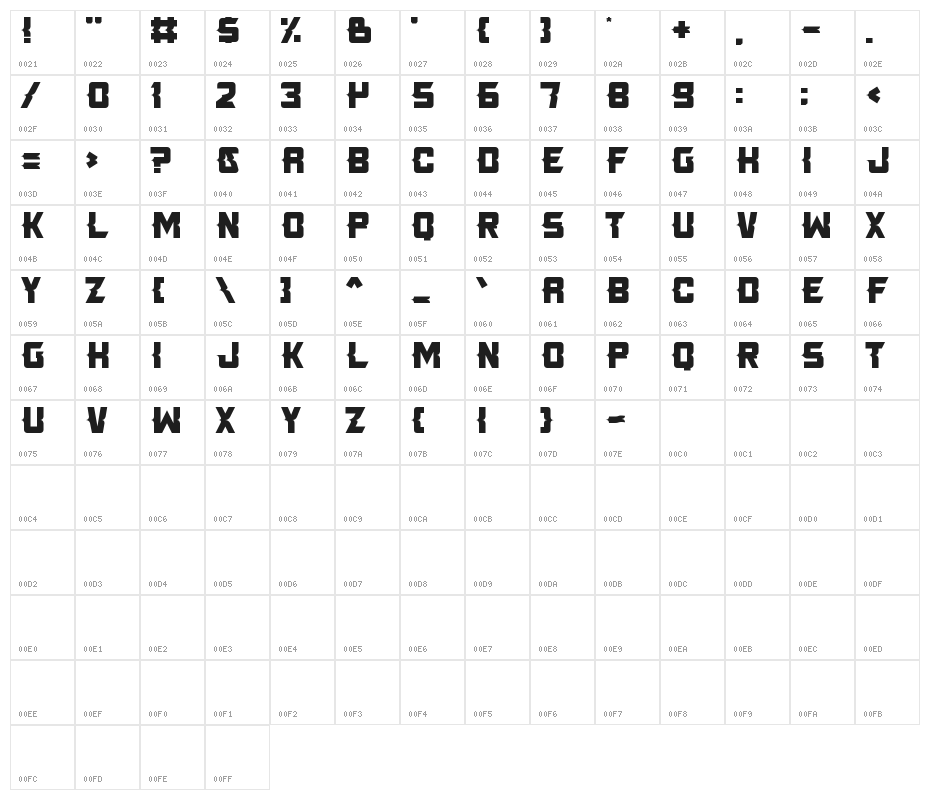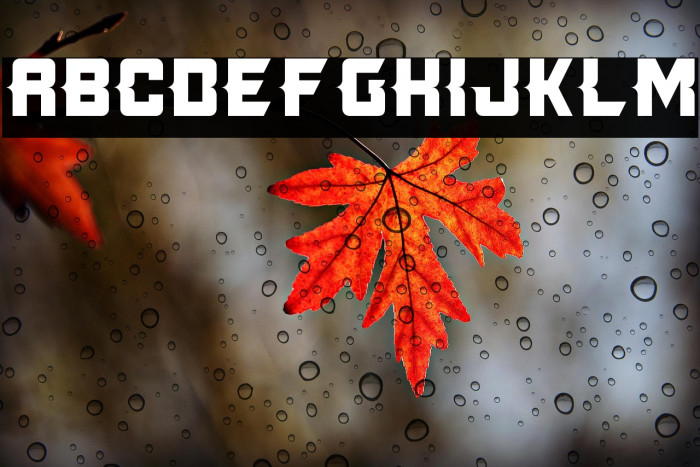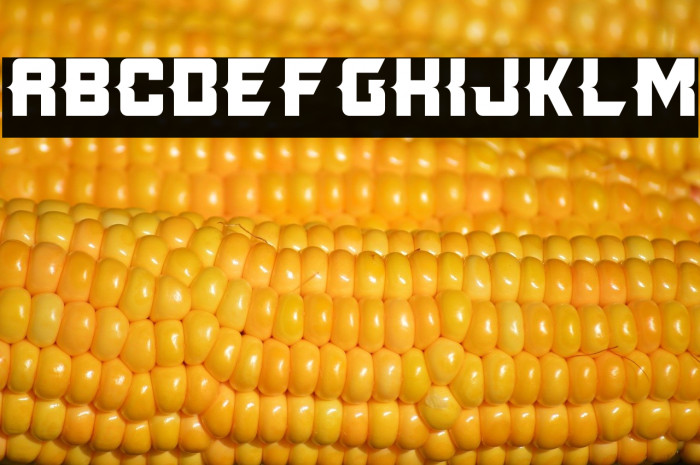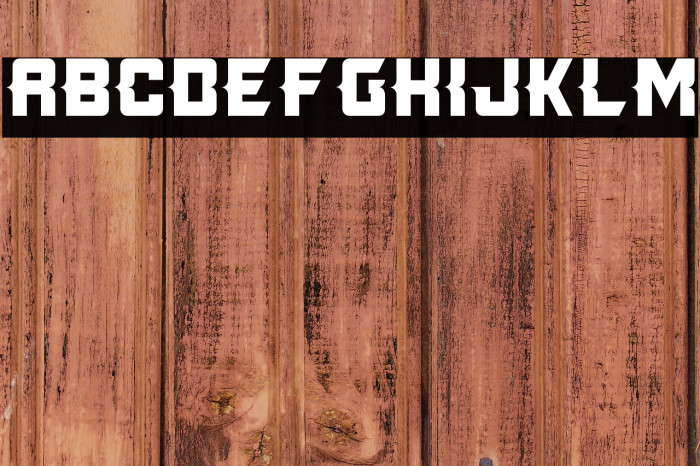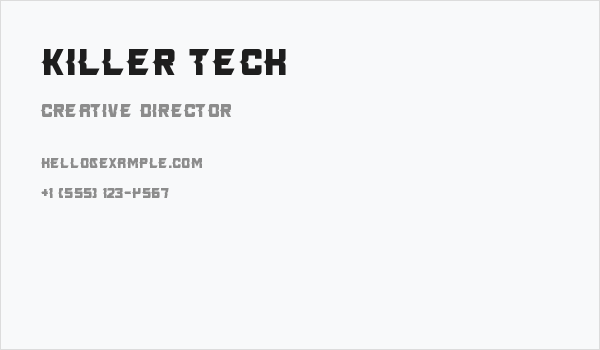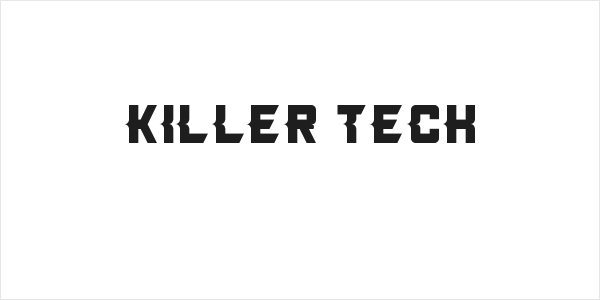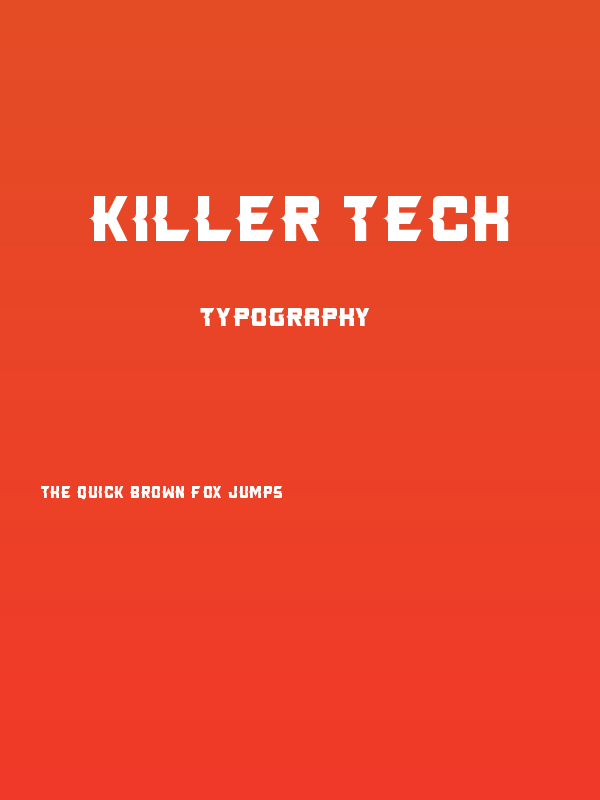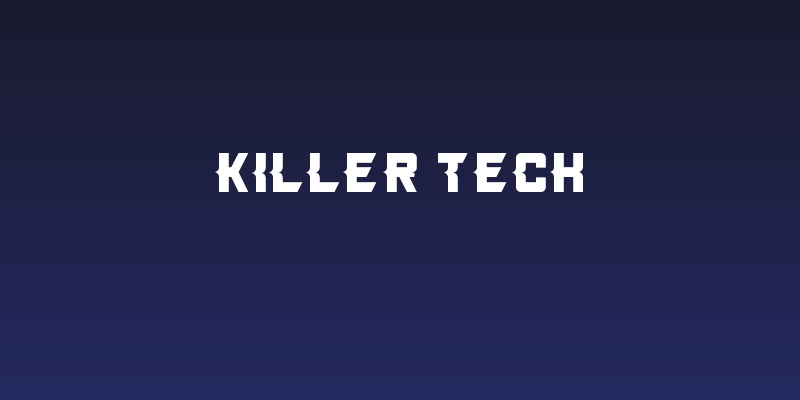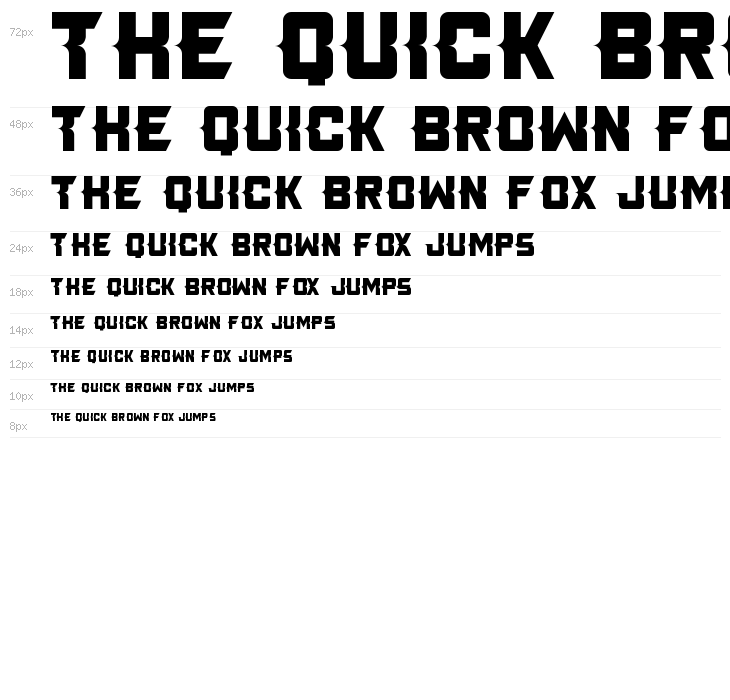
Killer Tech Font
Killer Tech Description
This font features a bold, futuristic design with angular, geometric shapes that convey a sense of modernity and technology. The characters are uniformly thick, with sharp edges and a blocky appearance that enhances its digital aesthetic. The uppercase and lowercase letters maintain a consistent style, with the lowercase slightly smaller but equally impactful. Numbers and special characters follow the same design principles, ensuring a cohesive look across all glyphs. This font is perfect for projects that require a tech-savvy, cutting-edge feel.
| Proposed Projects | Ideal for technology branding, video game titles, sci-fi movie posters, and digital interfaces. |